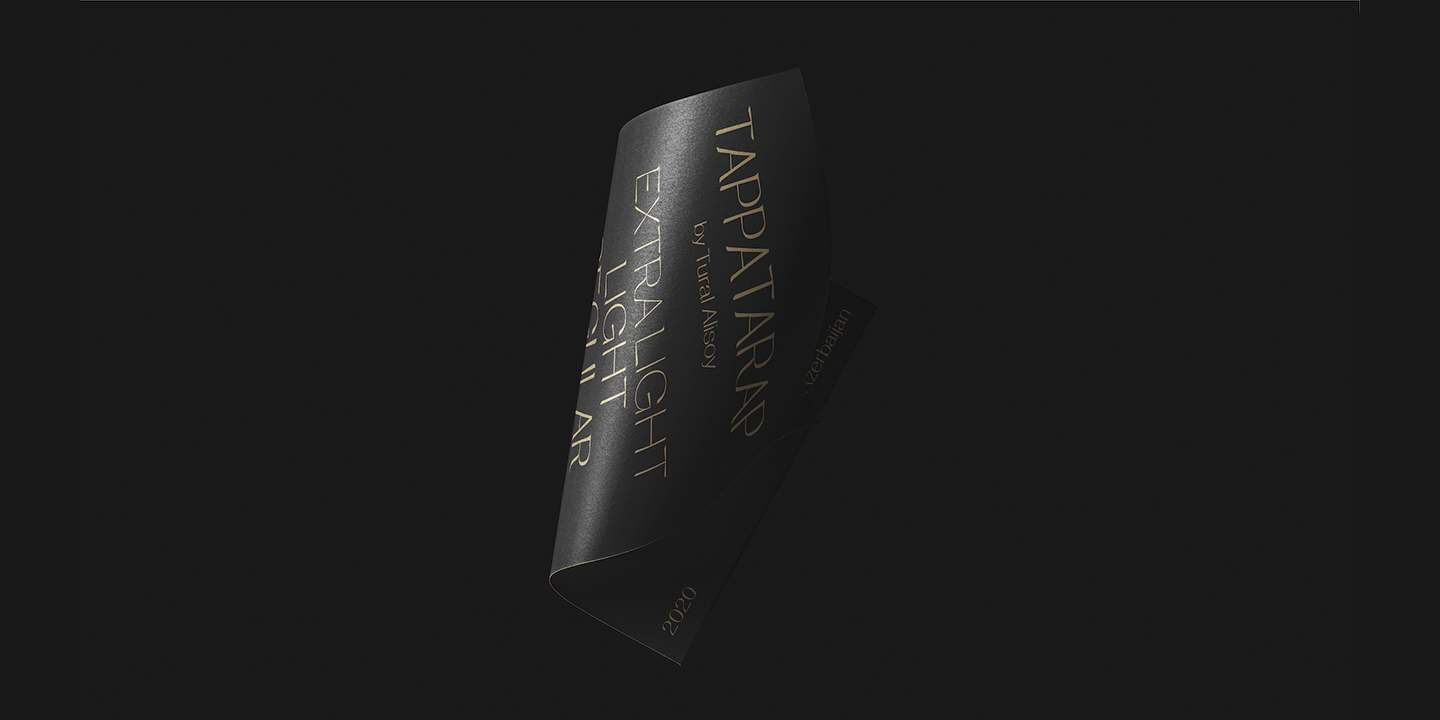
If you are searching for a playful and vibrant typeface, Tappatarap Font Free Download is exactly what you need. This fun and energetic font is perfect for projects that require a lively and youthful touch. With its quirky letterforms and bold personality, Tappatarap is a great choice for posters, children's books, branding, social media graphics, and more.
Designed to capture attention and bring smiles, this font features a dynamic style that enhances creativity in every project. Its unique design makes it stand out in a crowd, ensuring that your message is both seen and remembered. Whether you are designing for a casual event, a fun campaign, or anything that needs a spark of joy, Tappatarap will deliver outstanding results.
Bring your ideas to life with the bold and spirited charm of Tappatarap. Its distinctive style will add a fresh and cheerful vibe to all your creative endeavors.